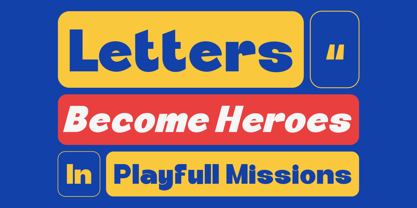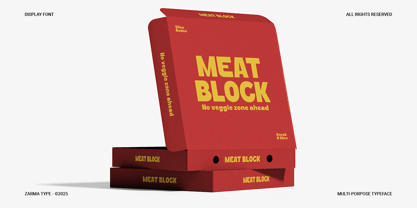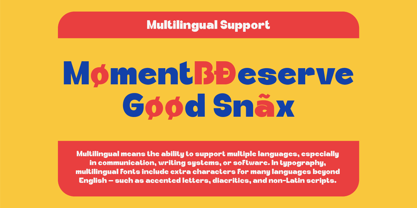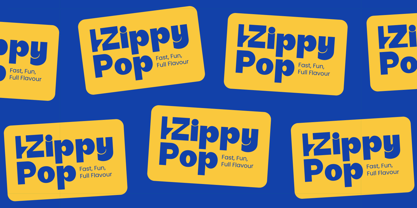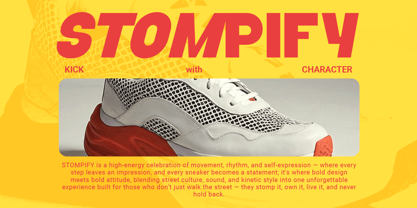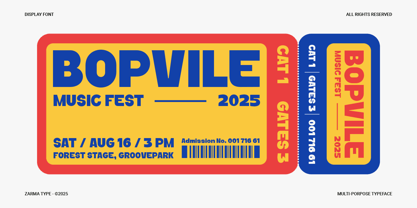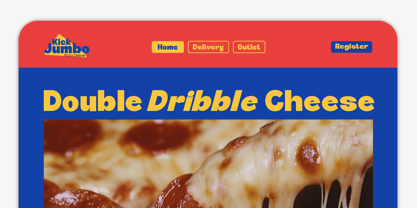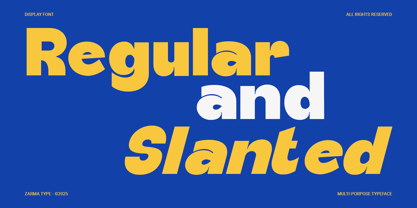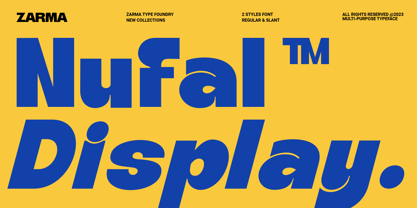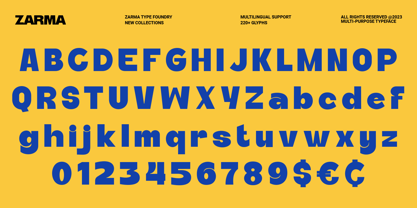
Nufal
by Azzam Ridhamalik
The Nufal Font Family was designed by Azzam Ridhamalik and published by Azzam Ridhamalik. Nufal contains 2 styles and family package options. More about this family
Nufal is a bold and quirky display font with thick, rounded letters, designed to bring playful energy and standout personality to your visuals. With clean legibility and slanted variants, it’s perfect for projects that demand attention without losing clarity.
From youth-focused packaging to expressive event posters, Nufal adapts beautifully with full multilingual support and a strong typographic presence. It’s loud, lovable, and ready to make your next design unforgettable.